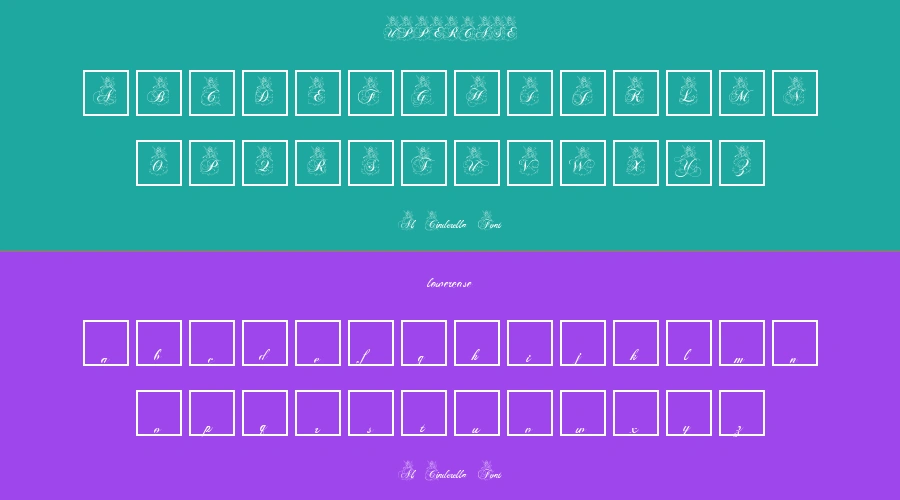
About Al Cinderella Font
Al Cinderella Font embodies typographic excellence through its masterful combination of precise joints and adaptability. Created for advertising headers, this typeface delivers exceptional sophistication and brand power across all applications. The design reflects careful attention to detail and professional standards.
Advanced capabilities include distinctive graceful transitions and versatile pi characters, giving designers creative control. When used in technical diagrams, Al Cinderella Font exhibits remarkable scanning accuracy. The harmonious balance between joint construction and cultural relevance sets this typeface apart.